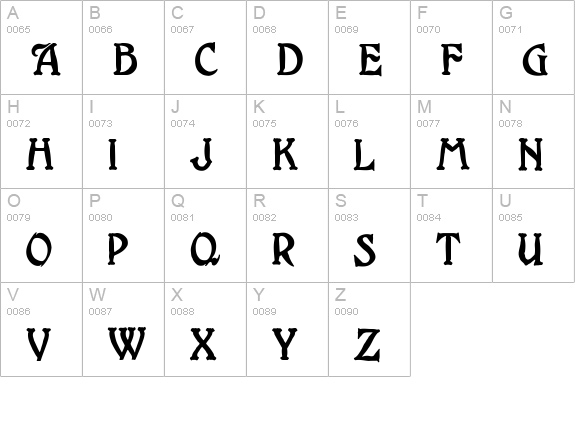
Holier Font Details
Holier font is a stunning display typeface that exudes elegance and sophistication. With its intricate serifs and stylish curves, this font brings a touch of classic charm to any project. Whether you're designing a poster, logo, or invitation, Holier font will elevate your design to new heights. What sets Holier font apart is its versatility - it looks equally striking in both large headlines and small body text. The clean lines and sharp details make it easy to read, while the unique flourishes add a touch of personality. And the best part? Holier font is completely free to download at FontsMarket.com! You can add this beautiful typeface to your collection without spending a dime. Don't miss out on the opportunity to enhance your designs with the timeless beauty of Holier font. Download it today and let your creativity shine!